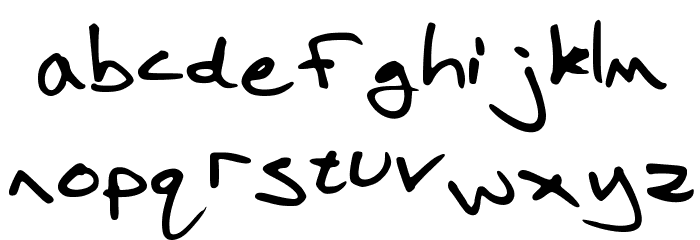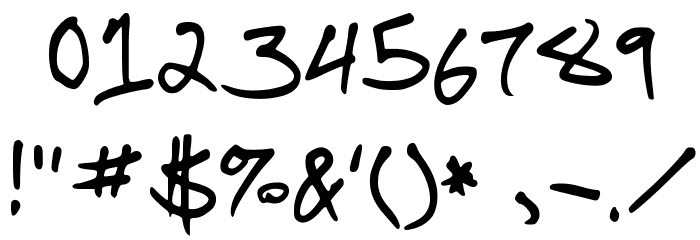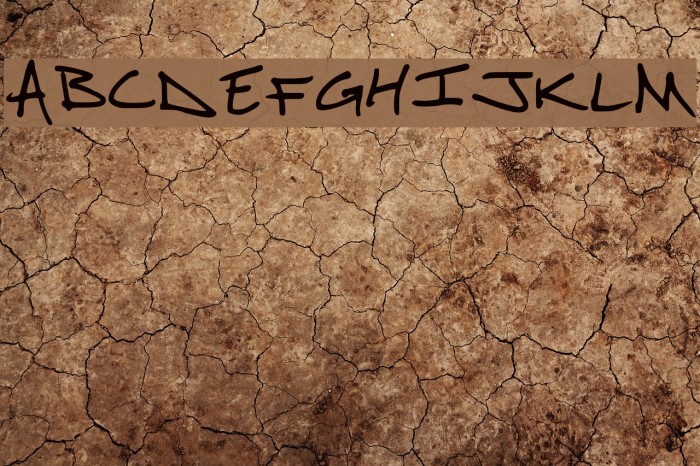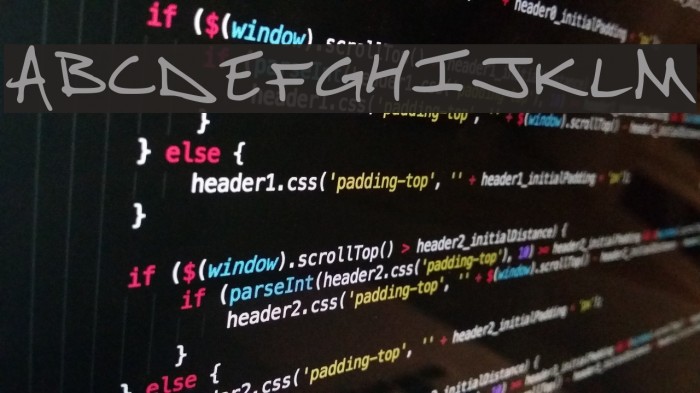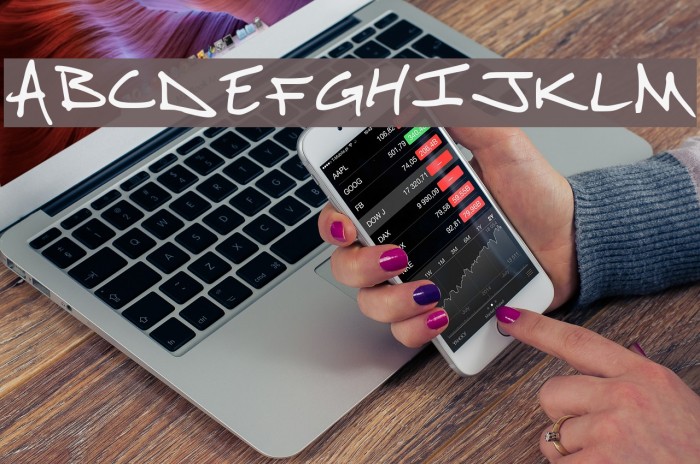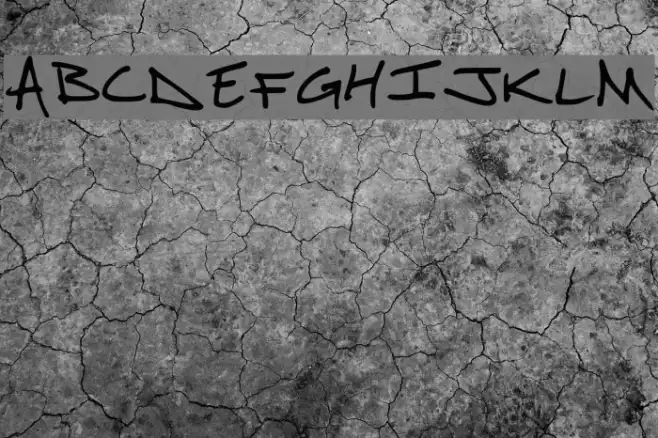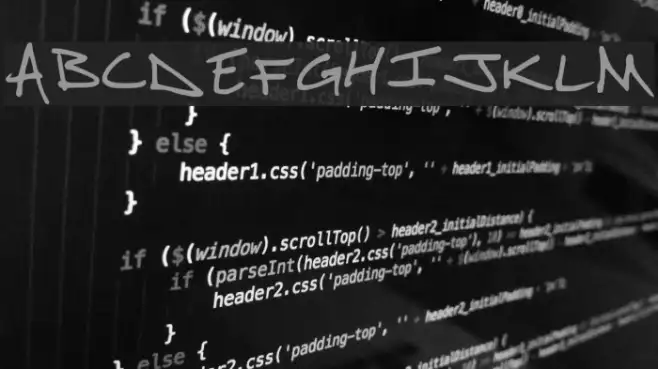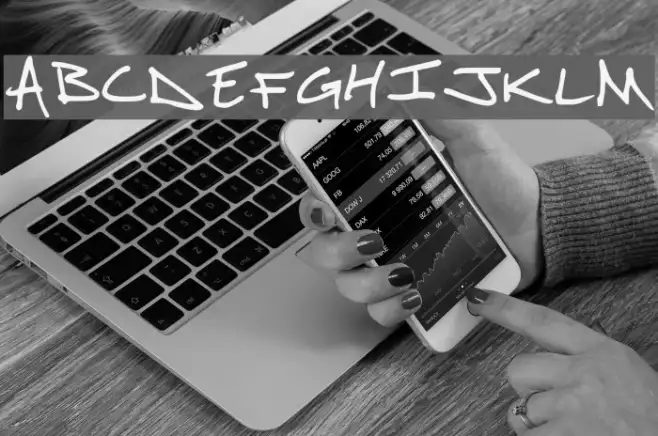
MPOK hand Font
This font features a lively and dynamic handwritten style, characterized by its casual and informal appearance. The letters are slightly slanted, with varying stroke widths that add a sense of movement and personality. The uppercase and lowercase letters maintain a consistent flow, while the numbers and special characters integrate seamlessly with the overall design. The font's playful nature makes it ideal for projects that require a personal touch or a sense of spontaneity. Its legibility is maintained despite the irregularities typical of handwritten fonts, making it versatile for various applications.
A lively, dynamic handwritten font with a casual and informal style.
- Proposed Projects: Greeting cards, personal invitations, casual branding, social media graphics, and creative posters.
- Overall Style: Casual, Playful
- Use Case: Logos, Headlines, Informal Text